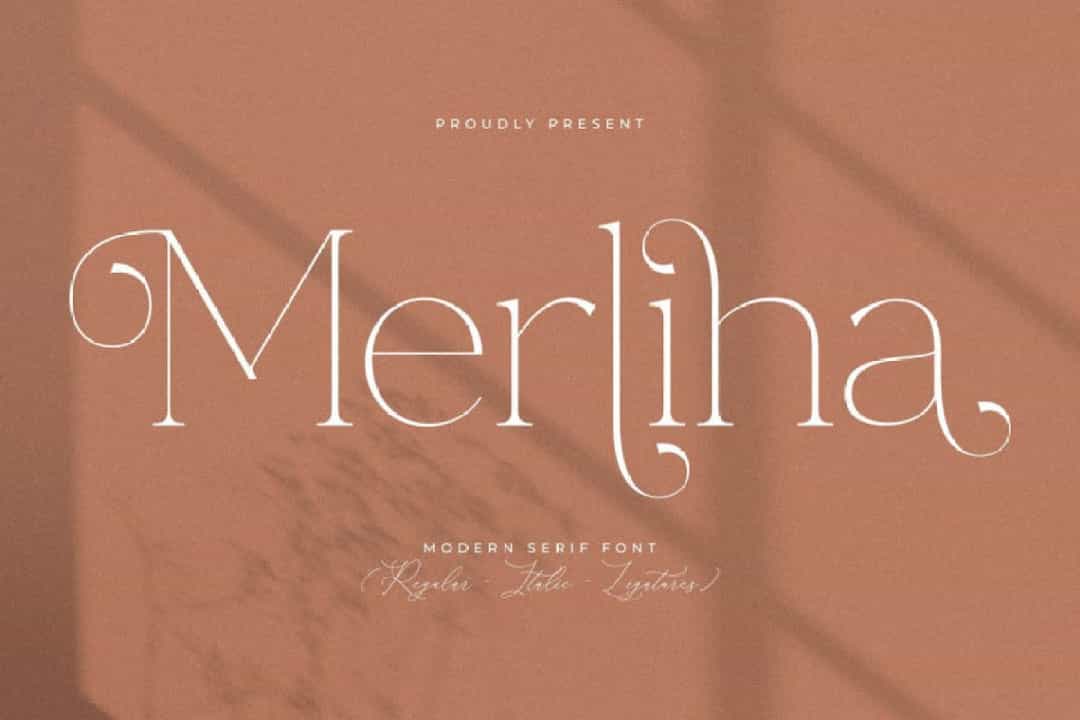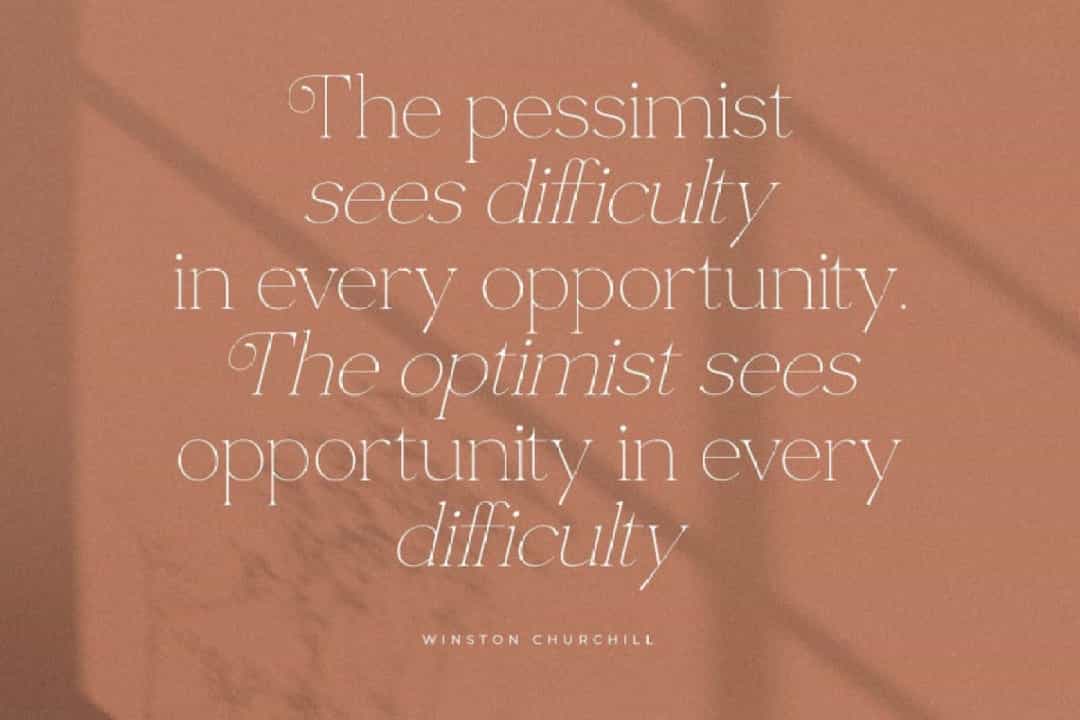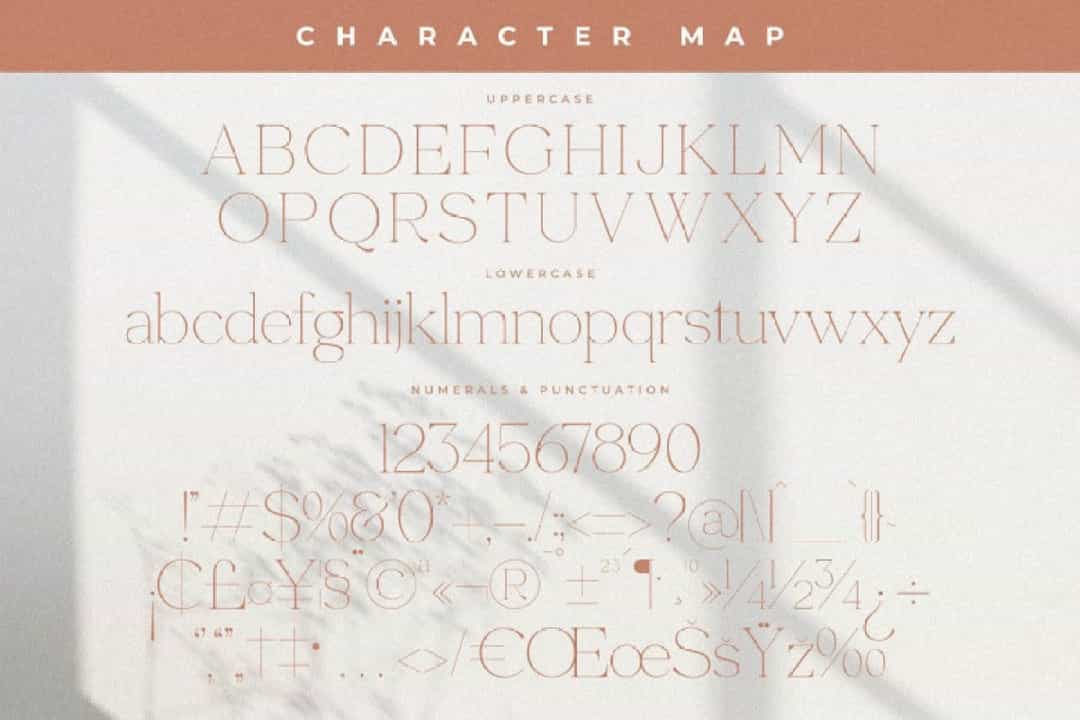
Merliha is an eye-catching serif typeface with contemporary elegance, chicness and sophistication that’s captivating by its sophisticated lines and soft curves. Perfect for branding or editorial designs as well as high-end products with classical charm – Merliha adds class and elegance effortlessly into any project you use it in.